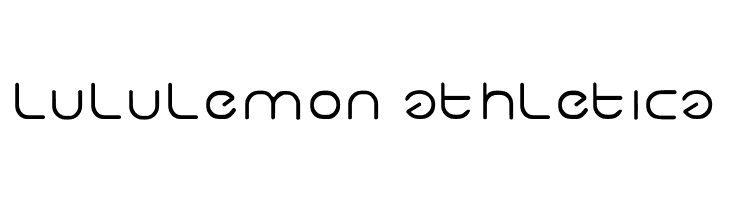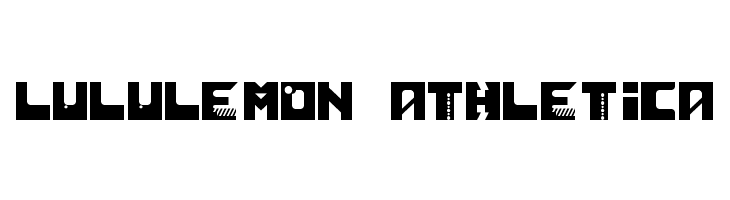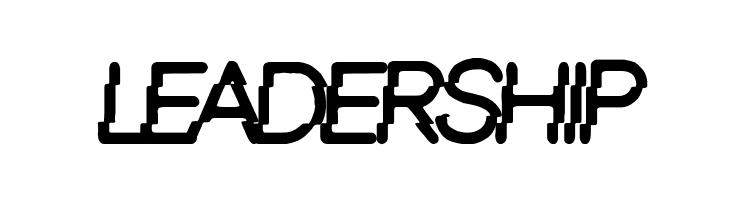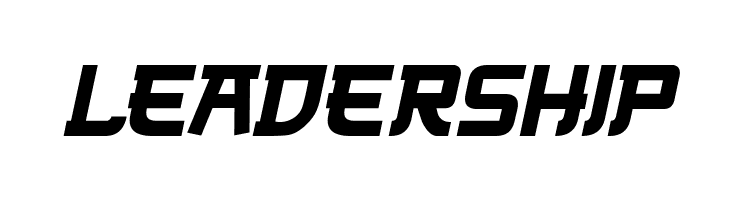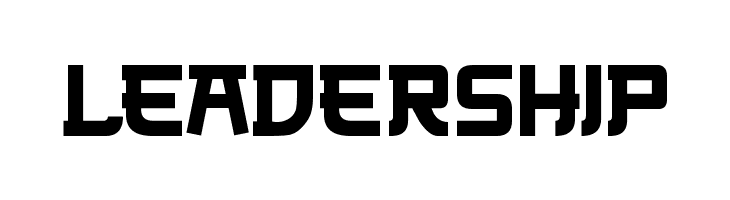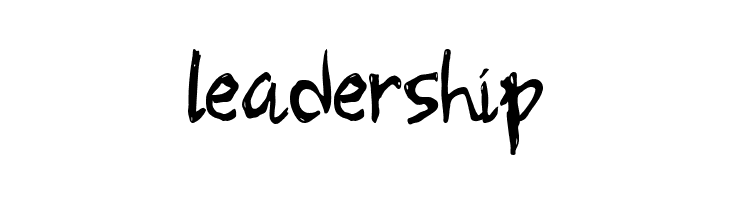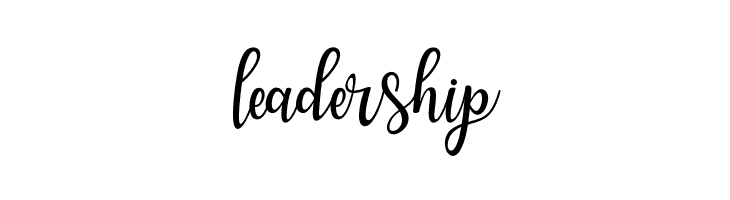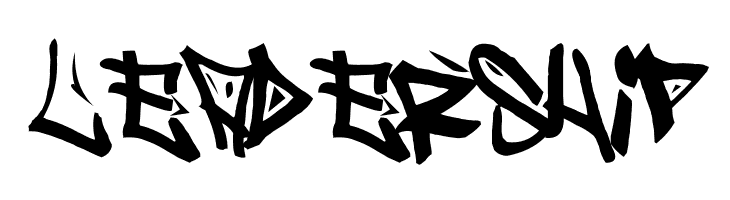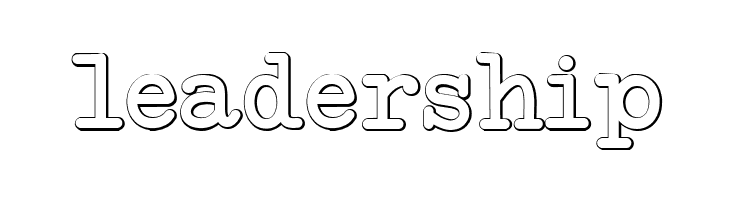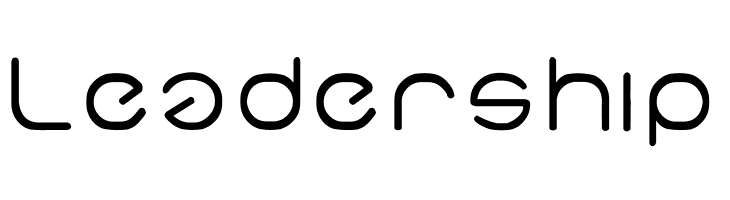
A pixelated, monospaced font with a retro digital aesthetic.
A pixelated, blocky font with a retro digital aesthetic.
A classic serif font with high contrast and elegant serifs.
A bold serif font with strong, classic lines and pronounced serifs.
A bold, italic serif font with strong strokes and elegant slant.
An elegant italic serif font with classic, flowing letterforms.
A bold, cartoonish font with playful, monster-like characters.
A bold, playful font with chunky, irregular letters and a retro comic book vibe.
A bold, playful font with exaggerated curves and thick strokes.
A playful, monster-themed font with bold, animated characters.
A bold, geometric font with angular lines and a modern aesthetic.
A playful, rounded font with a whimsical and friendly style.
A bold, geometric font with a futuristic and segmented design.
A bold, geometric font with a modern, segmented design.
A chunky, geometric display font with playful, irregular forms.
Bold, outlined, geometric display font with playful, blocky shapes.
Bold, blocky, playful display font with high contrast and mural-inspired shapes.
A modern, elegant script font with flowing curves and dynamic strokes.
A modern, clean sans-serif font with consistent stroke width and minimalistic elegance.
A modern, geometric sans-serif font with clean lines and uniform strokes.
A textured, handwritten font with a casual and organic style.
A bold, playful, hand-drawn font with a whimsical and artistic style.
A bold, high-contrast font with a condensed style, perfect for impactful designs.
A bold serif font with thick strokes and sharp serifs, ideal for impactful headlines.
A bold, playful font with a blocky, cartoonish style.
A bold, distressed font with a grunge, stencil-like appearance.
A modern, geometric font with bold, interconnected lines and a futuristic aesthetic.